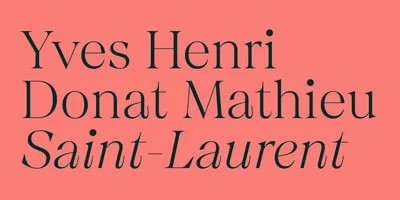
Chiaroscura Font
Chiaroscura Font is perfect for art gallery exhibitions, Renaissance-inspired designs, dramatic theater posters, fine art photography portfolios, classical painting reproductions, sophisticated wine labels, luxury art book publishing, museum catalog layouts, artistic film noir projects, and elegant design applications that explore the dramatic interplay between light and shadow in visual communication.
What makes Chiaroscura Font exciting is its masterful ability to capture the Renaissance technique of dramatic light-shadow contrast through its carefully balanced letterforms that seem painted by master artists who understood how darkness defines light and shadow creates depth. This sophisticated typeface embodies the spirit of classical artistry with its contrasting character that speaks of Caravaggio's dramatic lighting, Leonardo's sfumato technique, and the kind of artistic mastery that transforms simple forms into profound visual poetry through skillful manipulation of light and darkness.
The Chiaroscura Font family includes light, regular, and bold weights designed to maintain its artistic authenticity across various creative applications. Special artistic symbols, Renaissance-inspired ornaments, and classical decorative elements complement the main typeface, while dramatic spacing creates visual tension that mirrors the chiaroscuro technique for authentic fine art design applications requiring sophisticated aesthetic sensibility.
Chiaroscura Font offers artists and cultural institutions access to typography that honors classical artistic tradition. Its artistically crafted letterforms maintain exceptional legibility while projecting an image of cultural sophistication and artistic heritage. The font's versatile nature works beautifully for both traditional fine art presentations and contemporary design projects celebrating artistic excellence.
Illuminate your designs with Chiaroscura Font and create visual masterpieces that celebrate the timeless beauty of light and shadow while honoring the artistic traditions that continue to inspire creativity.